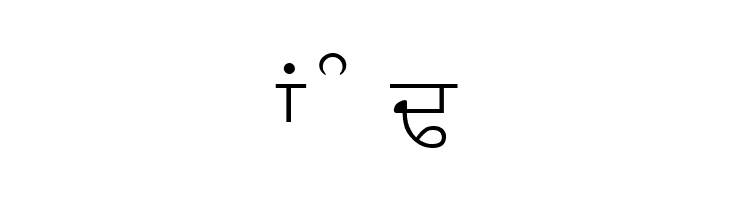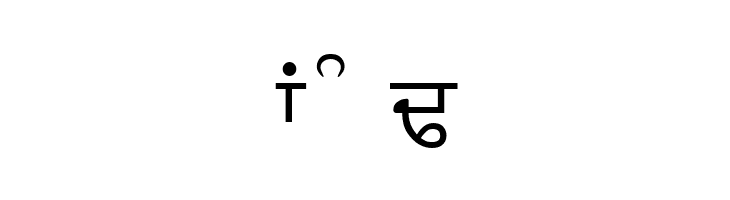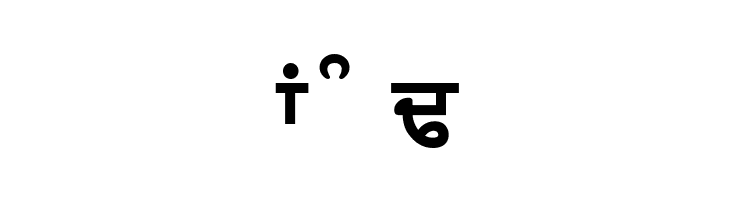
AmrLipi Font
A modern, elegant font with flowing curves and balanced proportions.
AmrLipiLight Font
A clean, modern font with smooth curves and consistent stroke width.
AmrLipiHeavy Font
A bold, heavy font with strong, consistent strokes and a balanced design.
AmrLipiSlim Font
A modern, elegant script font with smooth curves and consistent stroke width.
AmrLipiLight Bold Font
A bold, modern font with a strong, uniform appearance and clear legibility.